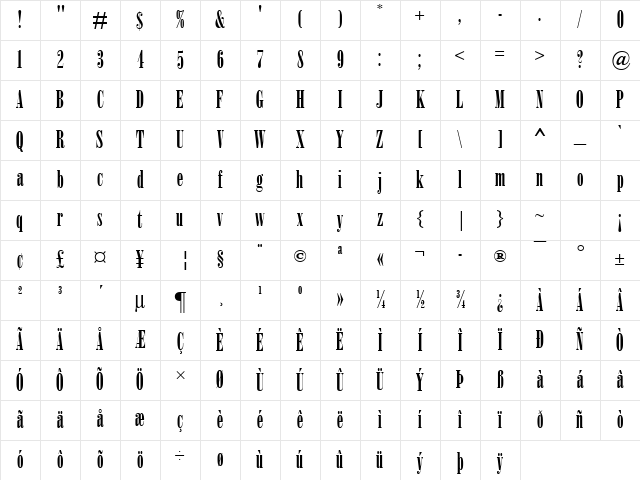
Onyx Regular Free Font
Onyx Regular
Complete Onyx Regular glyph index. Displaying only characters natively supported by Onyx Regular font.
Design Context for Onyx
Onyx is a composed and adaptable typeface that performs quietly and consistently across a wide range of design contexts.